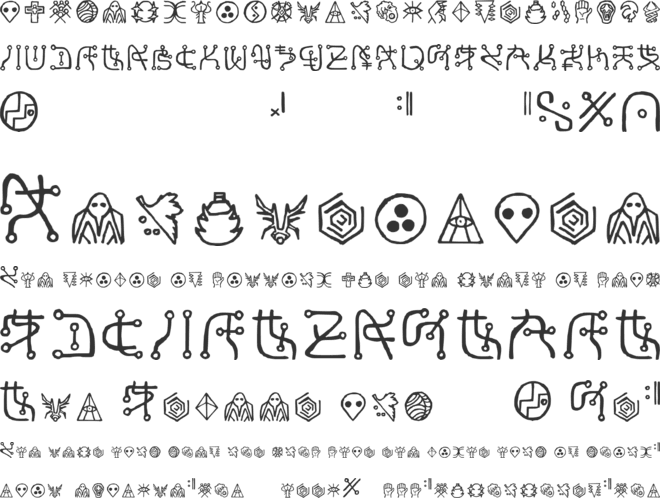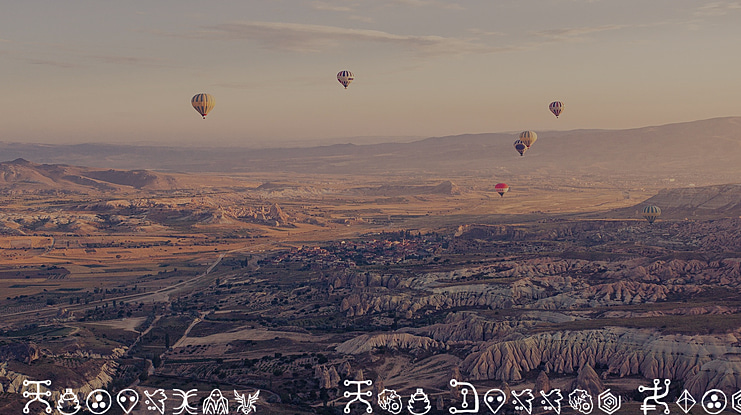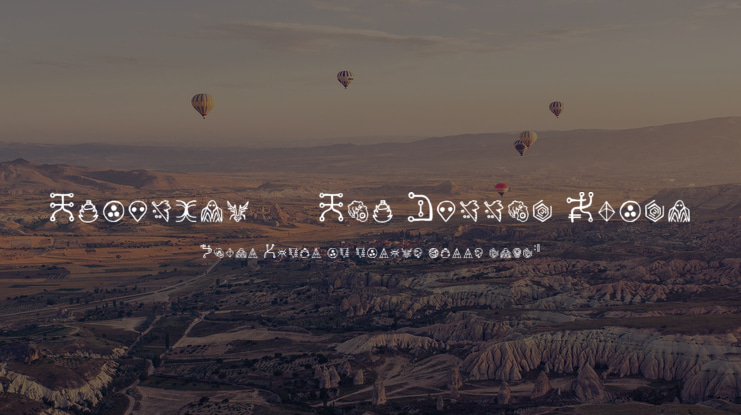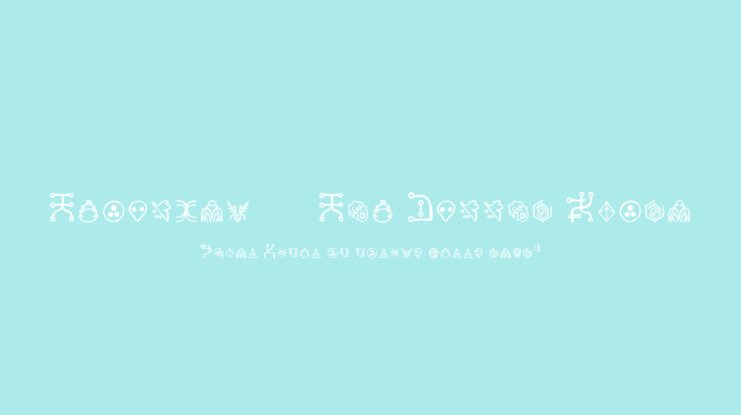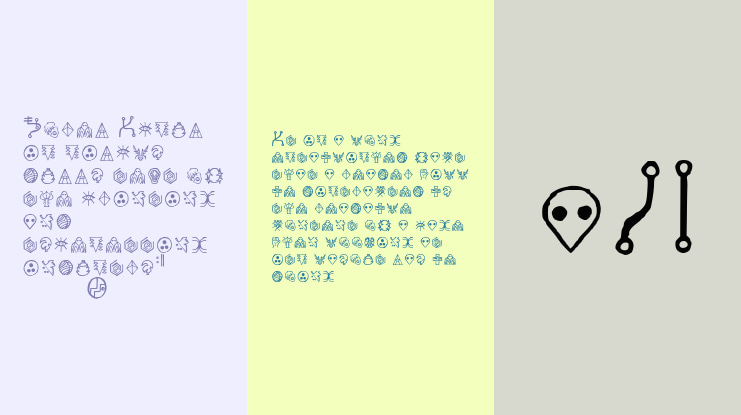
YuiAngel 1.11 You can(not) write
I designed this font taking inspiration on the Dead Sea Scrolls characters shown in the opening of Neon Genesis Evangelion (https://evangelion.fandom.com/wiki/Dead_Sea_Scrolls).
Hideaki Anno and his team took inspiration from the celestial and angelic alphabets that can easily found on the internet, supposedly a way to communicate with angels through magic or something like that, but I don't give a crap about that stuff. As a fan of that anime, I just wanted to pay tribute to it in a typing manner.
This font was made by hand in printed Calligrafr template (https://www.calligraphr.com), and there was no attempt to make a a polished version because I wanted a rather crude result due the handwritter diegetical origin of the characters.
Diseñé esta fuente tomando inspiración en los caracteres de los Rollos de Mar Muerto que aparecen en el opening de Neon Genesis Evangelion (https://evangelion.fandom.com/wiki/Dead_Sea_Scrolls).
Hideaki Anno y su equipo se inspiraron en los alfabetos celestial y angelical que pueden ser encontrados fácilmente en el internet, supuestamente sendo una forma para comunicarse con ángeles a través de magia y cosas así, pero la verdad no me importa mucho esa cháchara. Como fan del anime, sencillamente quise hacerle tributo a punta de letras.
Esta fuente fue hecha con una plantilla impresa de Calligrafr template (https://www.calligraphr.com), y no se hizo ningún intento por hacerla pulida porque quería un resultado crudo deliberado dado el origen manuscrito en el origen de los caracteres dentro de la serie. More...